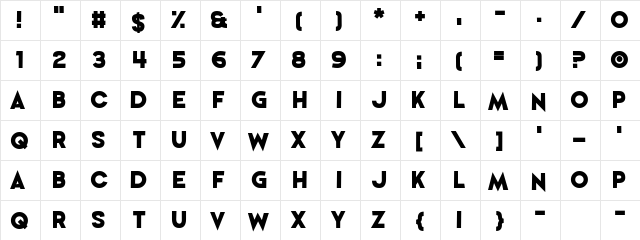
Perfectly Together Regular
Design Context for Perfectly Together Typeface
Perfectly Together takes a measured approach to typography — its balanced proportions and neutral character make it a reliable workhorse for both digital and print work.